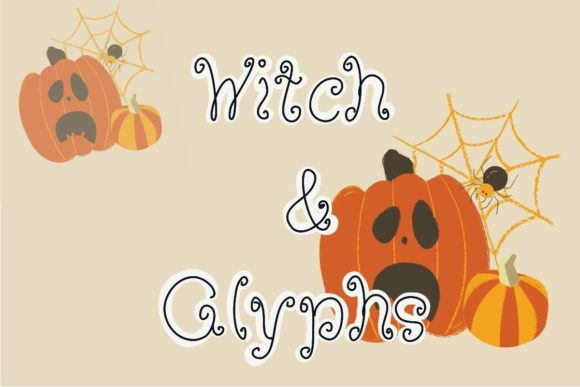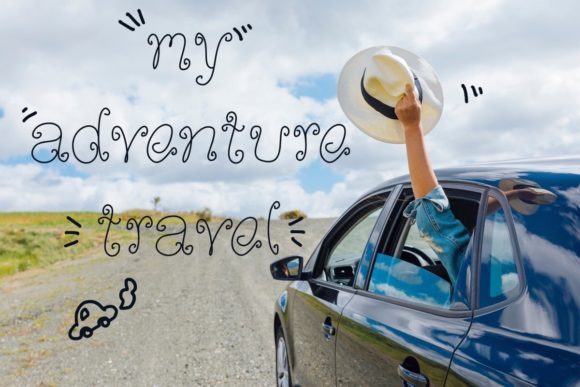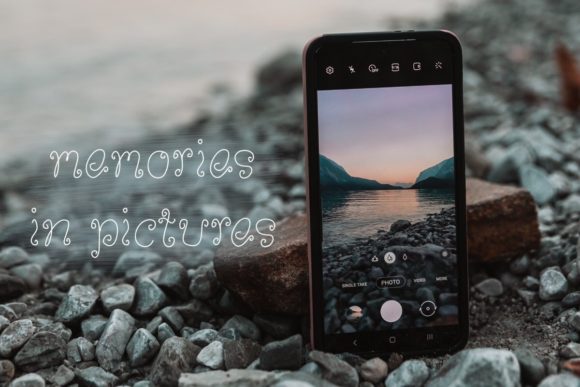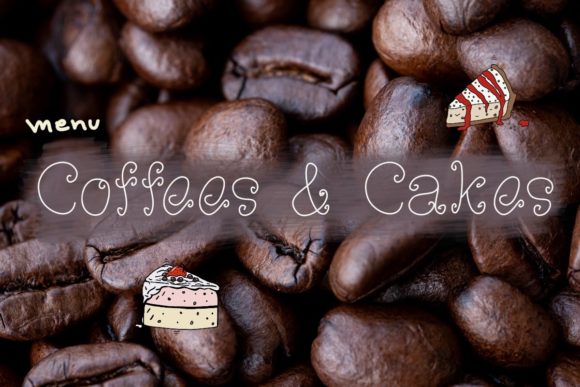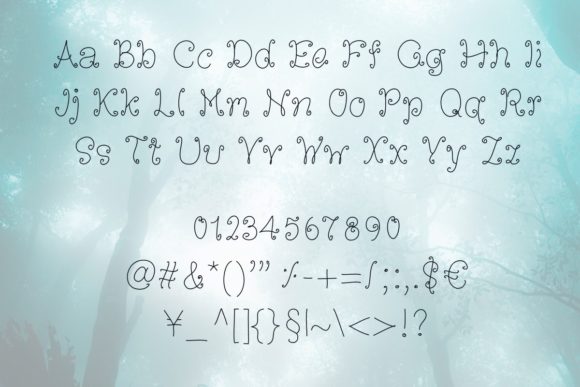
Witch & Glyphs Font
Witch & Glyphs is a whimsical, dainty and chic script font. It features a varying baseline, smooth lines, gorgeous glyphs and stunning alternates.